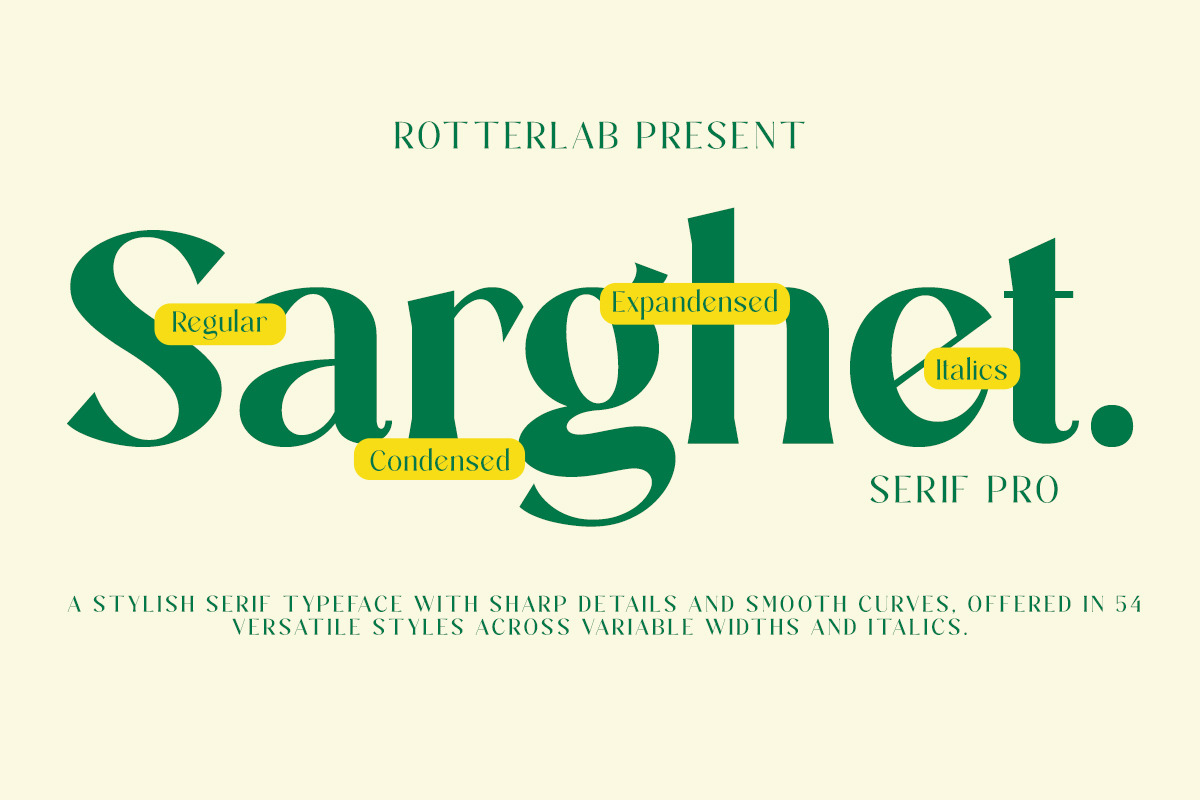
Sarghet - 54 Font Family
Sarghet Serif Pro is a modern serif typeface family designed with sharp details and smooth curves, presenting a blend of classic brotherhood and contemporary nuances. With a total of 54 versatile styles, including Regular, Condensed, Expanded, and Italics, this font provides full meaning for various typographic needs, both in branding design, editorial, and other creative projects. Its bold yet refined character makes it the right choice to create a professional and stylish impression, thus strengthening visual identity in every context of use. Designed to provide a balance between readability and aesthetics, Sarghet Serif Pro is ideal for use in large titles, logos, and publication layouts that demand an elegant and classy look.